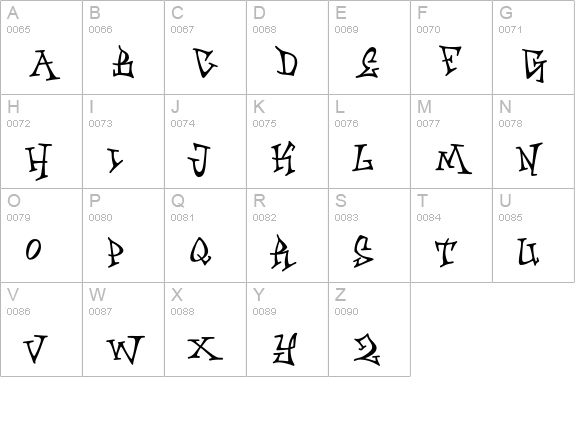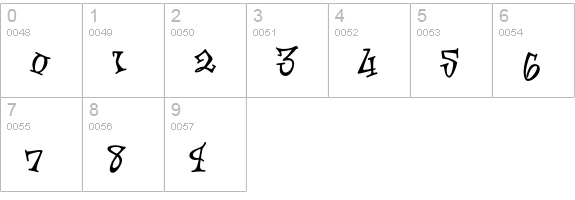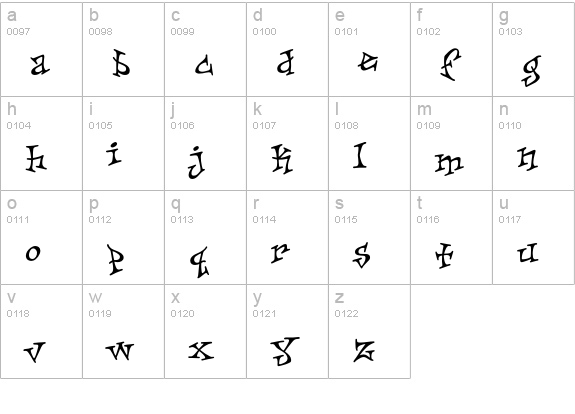
Skiffledog-BoldRiff Font Details
Introducing Skiffledog-BoldRiff, a font that embodies the spirit of rebelliousness and raw energy. This bold and daring typeface is perfect for those who seek to make a powerful statement with their design projects. Skiffledog-BoldRiff is a fusion of strong, angular lines and a distinct rock 'n' roll vibe. Its characters exude confidence and attitude, making it the ideal choice for music posters, album covers, and any project that requires a touch of edginess. But what truly sets Skiffledog-BoldRiff apart is its unique feature - it's free! Yes, you heard it right, this exceptional font is freely available to download at FontsMarket.com. Now, you don't have to compromise on quality or style when working within your budget. With Skiffledog-BoldRiff, you can unleash your creativity without any restraints. The font's versatility allows it to shine in various design contexts, from branding to social media graphics. Its bold presence ensures that your message will be noticed, leaving a lasting impression on your audience. Whether you're a professional designer or an aspiring artist, Skiffledog-BoldRiff will elevate your work to new heights. Its expressive nature and modern aesthetics make it a go-to choice for those who dare to push the boundaries of design. So why wait? Unlock the potential of Skiffledog-BoldRiff and make a visual statement that speaks volumes. Download this remarkable font for free today at FontsMarket.com and start creating designs that truly stand out from the crowd.